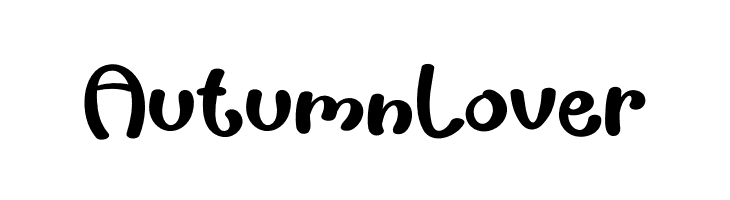
A playful, hand-drawn font with a whimsical and informal style.
A playful, narrow font with consistent strokes and a modern, friendly style.
A casual, elegant handwritten font with smooth, flowing lines and a slightly slanted style.
A casual and elegant handwritten font with smooth, flowing lines.
A playful and elegant script font with a handwritten feel.
A playful, whimsical script font with a handwritten feel.
A playful, cursive font with a natural, handwritten style.
A bold, cursive script font with a playful, handwritten style.
A playful, flowing script font with a handwritten style.
Playful, rounded sans-serif with a hand-drawn, whimsical feel.